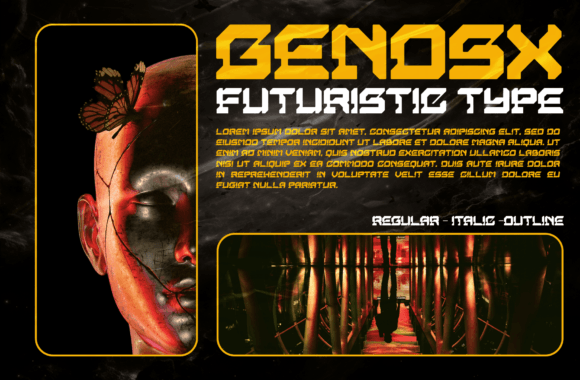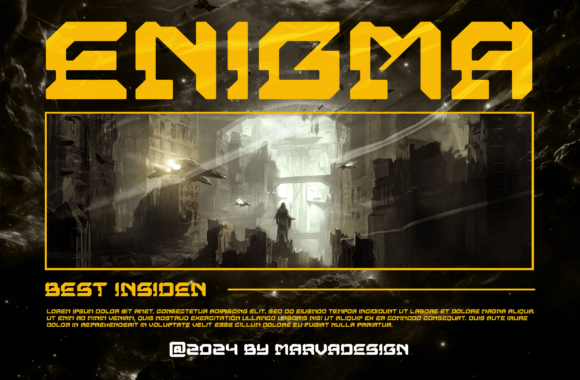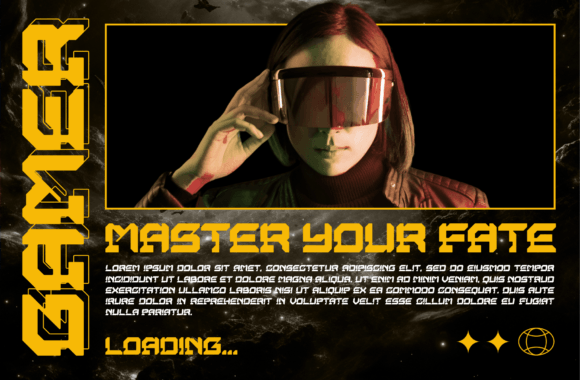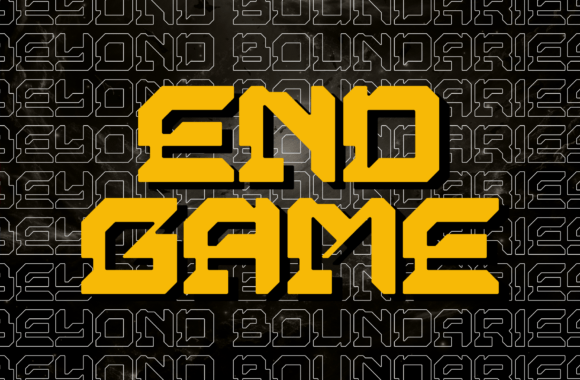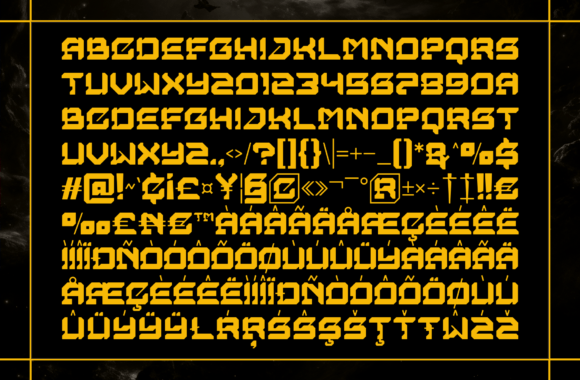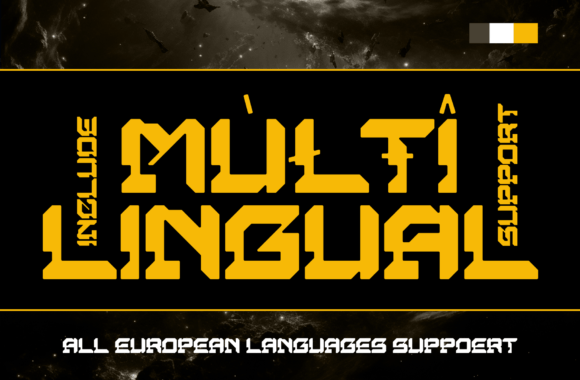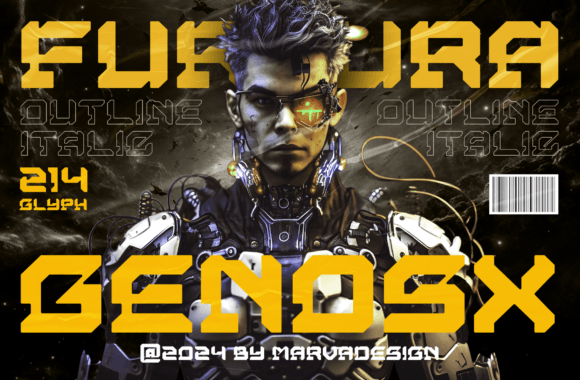
Discover the Futuristic Charm of Genosx Font: A Perfect Blend of Old-School Vibes and Modern Flair
In the realm of typography, few fonts manage to capture the essence of both nostalgia and innovation. Genosx Font, however, stands out as a remarkable exception. This unique typeface seamlessly blends old-school vibes with futuristic flair, making it an ideal choice for designers and crafters looking to add a distinctive touch to their projects. In this article, we’ll delve into the characteristics of Genosx Font, explore its uses, and understand why it has become a go-to for those seeking a nostalgic yet modern twist in their text.
The Aesthetic Appeal of Genosx Font
Genosx Font boasts a sleek, bold design that instantly commands attention. Its letters are crafted with a precision that makes them look like they belong in a sci-fi movie from the past, yet they carry a freshness that aligns perfectly with contemporary design trends. This fusion of retro and futuristic elements gives Genosx Font a unique aesthetic appeal that sets it apart from more conventional typefaces.
Each character in the Genosx Font is designed with a geometric accuracy that lends itself to a futuristic feel. The lines are clean, the curves are smooth, and the overall structure exudes a sense of forward-thinking design. However, it’s the subtle nods to vintage typography that truly make Genosx Font stand out. The slight distressed effects, the hint of analog warmth in its digital construction, and the classic proportions of the letters all contribute to its old-school charm.
Versatility and Application
One of the key advantages of Genosx Font is its versatility. Its distinctive style makes it suitable for a wide range of projects, from digital media to print, and from advertising to personal crafts. Here are a few ways designers and crafters can utilize Genosx Font:
- Branding and Logo Design: The bold and unique appearance of Genosx Font makes it an excellent choice for logos and brand identities that aim to stand out with a retro-futuristic appeal.
- Poster and Flyer Design: For any project that requires a statement piece, Genosx Font can add a compelling visual element that captures the audience’s attention.
- Digital Media: In digital content, such as video game titles, movie posters, or social media graphics, Genosx Font can add a layer of nostalgia and futuristic charm.
- Crafting and DIY Projects: For crafters, Genosx Font can be used in various DIY projects, such as custom t-shirts, stickers, or signage, offering a personalized and distinctive look.
Why Choose Genosx Font?
There are several reasons why Genosx Font has become a popular choice among designers and crafters:
- Unique Style: In a sea of similar fonts, Genosx offers a breath of fresh air with its distinctive blend of old and new.
- Legibility: Despite its bold and stylized appearance, Genosx Font remains highly legible, making it suitable for both headlines and body text.
- Customizability: Genosx Font comes with a range of customization options, allowing designers to adapt it to the specific needs of their projects.
Genosx Font represents a perfect marriage of old-school vibes and futuristic design. Its sleek, bold letters not only evoke a sense of nostalgia but also project a modern, forward-thinking attitude. Whether you’re a designer looking to add a unique touch to your projects or a crafter seeking to personalize your creations, Genosx Font offers a versatile and visually appealing solution. With its distinctive aesthetic, versatility, and legibility, Genosx Font is poised to make a significant impact in the world of design and beyond.
So, if you’re on the hunt for a font that can provide a nostalgic yet modern twist to your text, look no further than Genosx Font. Its futuristic charm and old-school roots make it a valuable addition to any designer’s or crafter’s toolkit.